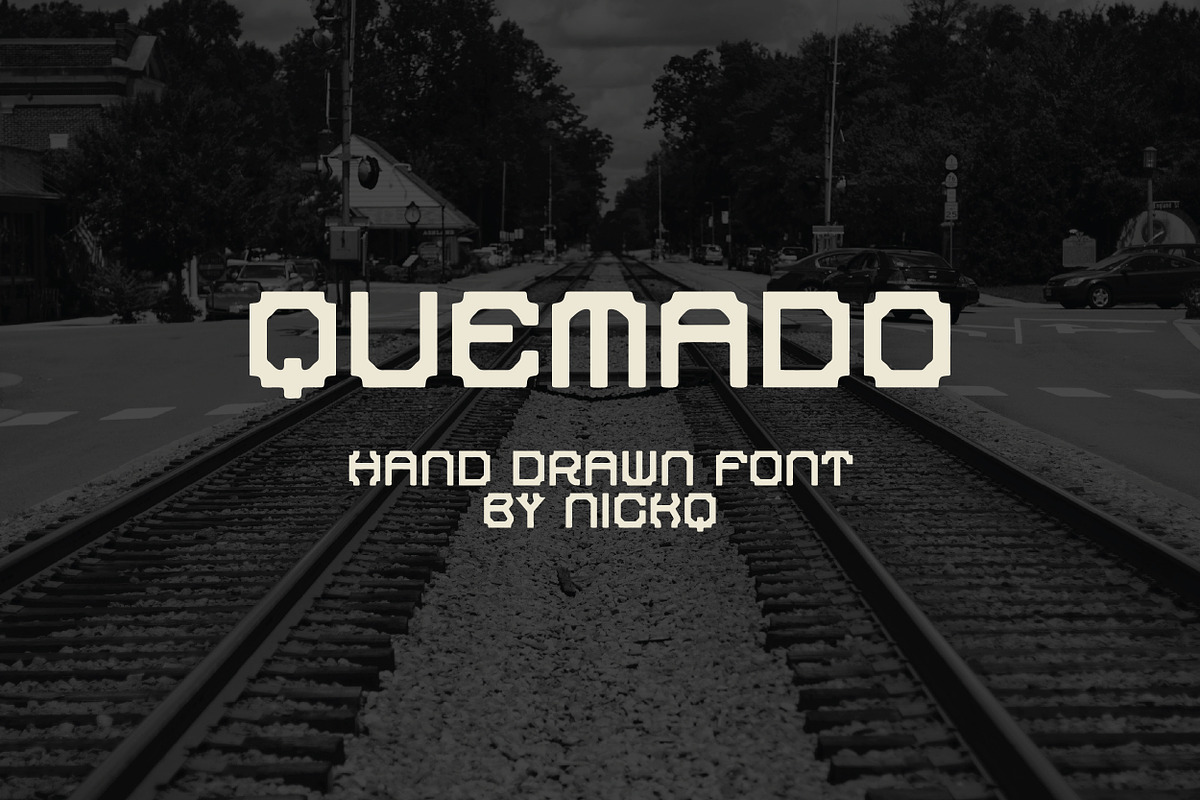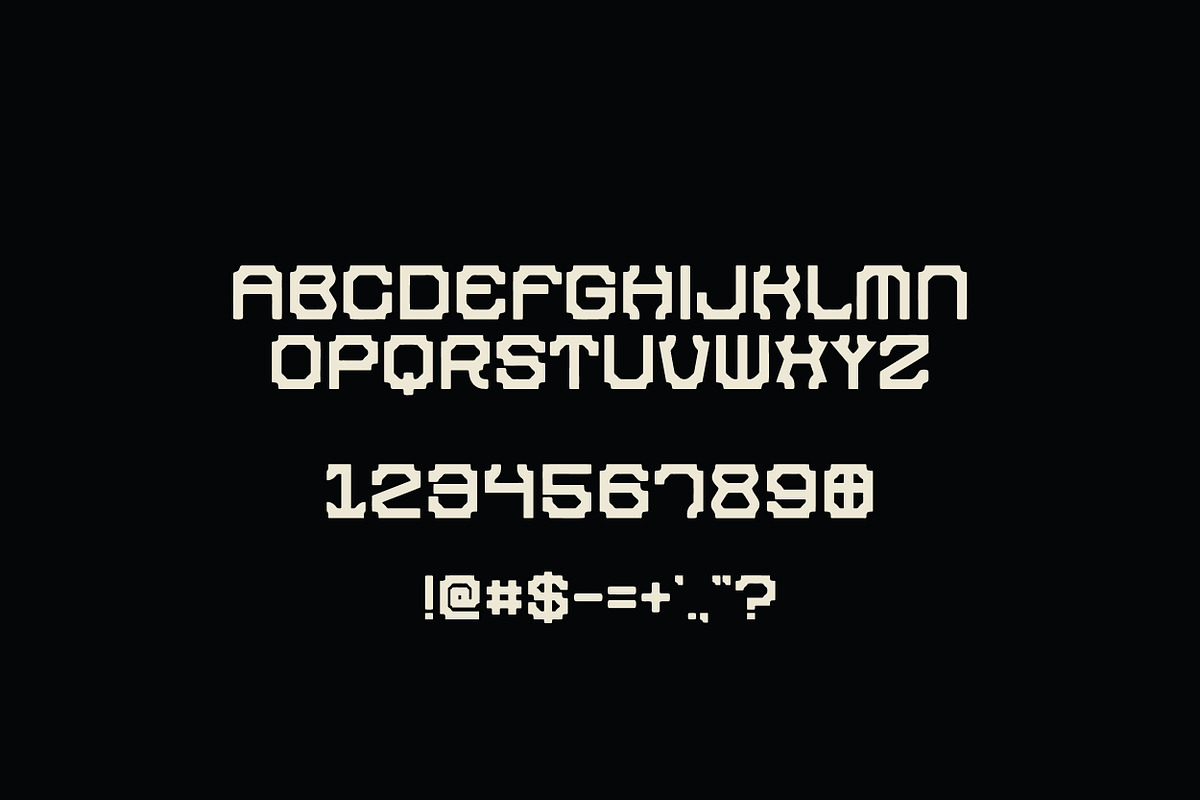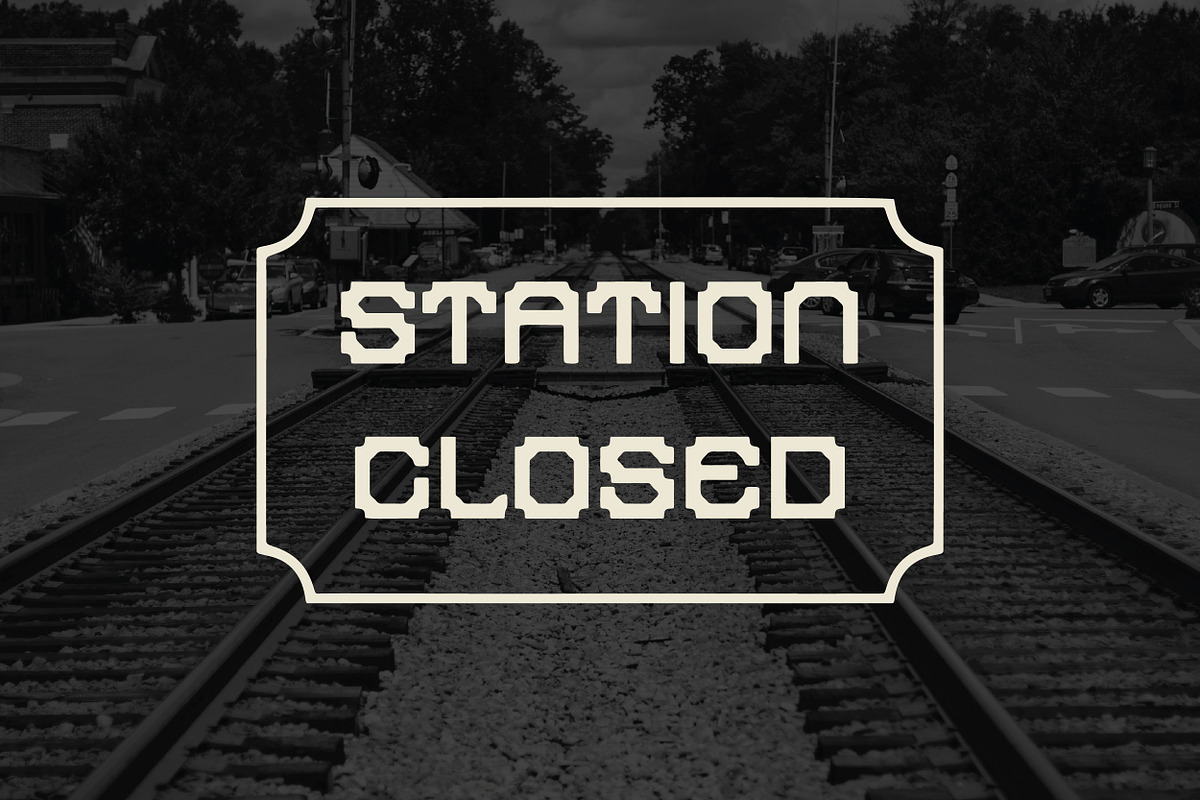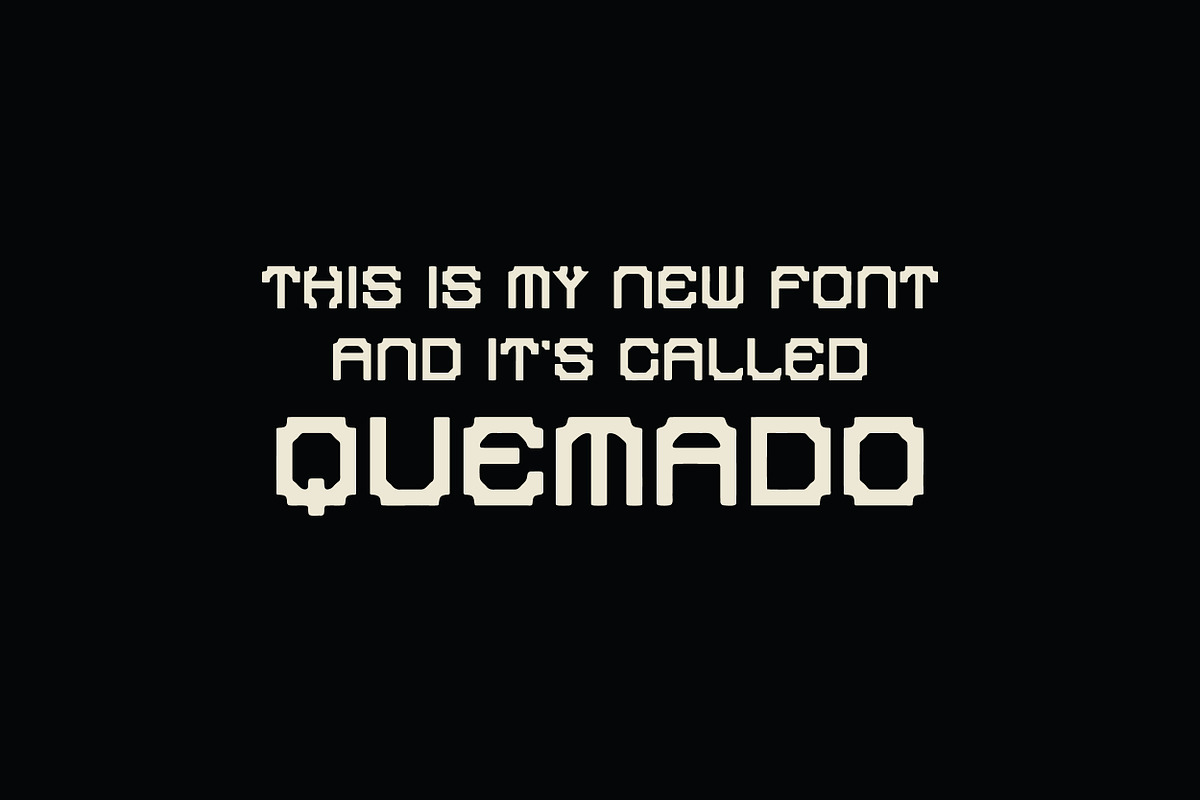
Quemado Hand Drawn Font
A hand-crafted font born from Texas roots, open road adventures, and a deep love of tattoo artistry. This typeface captures small-town Western charm mixed with bold, authentic ink-style character. Each letter reflects dusty highways, roadside diners, and Lone Star State aesthetics. The uppercase and lowercase share the same distinctive style, with numbers and symbols included. Perfect for logos, branding, packaging, posters, t-shirt designs, labels, greeting cards, social media graphics, wedding invitations, and merchandise. Pairs beautifully with vintage illustrations, distressed textures, and rustic design elements. Ideal for boutiques, cafes, breweries, barbershops, tattoo parlors, or any project needing authentic handmade warmth and rebellious personality with Americana, retro, and bohemian vibes.